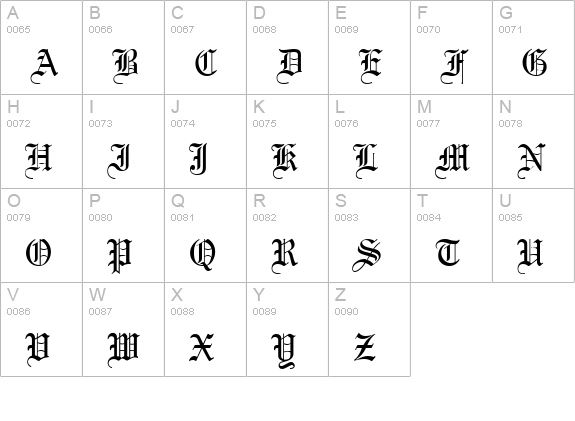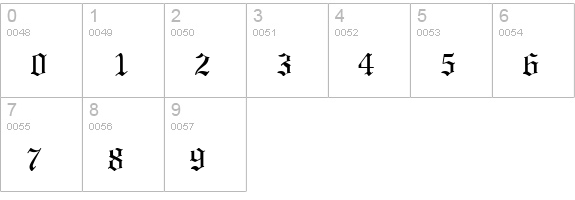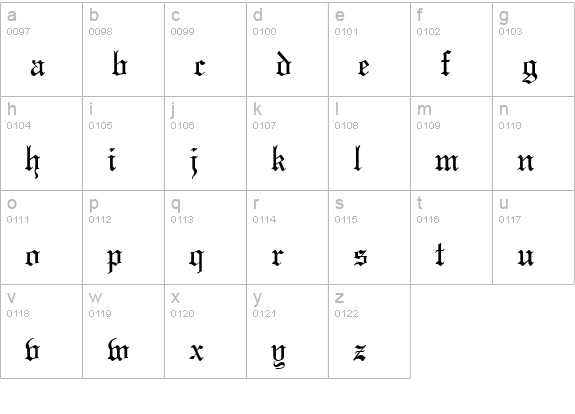
Meriage DB Font Details
Introducing Meriage DB, a stunning and elegant font that exudes sophistication and charm. This versatile typeface is perfect for a wide range of design projects, from branding to wedding invitations. With its delicate serifs and graceful curves, Meriage DB brings a touch of timeless beauty to any creative endeavor. What's even better is that Meriage DB is available for free download at FontsMarket.com. Yes, you read that right – this exquisite font can be yours at no cost at all. Whether you're a seasoned designer looking to add a new font to your collection or a beginner searching for the perfect typeface for your latest project, Meriage DB is the ideal choice. Don't miss out on this opportunity to enhance your designs with the beauty and elegance of Meriage DB. Download it for free today and let your creativity soar!